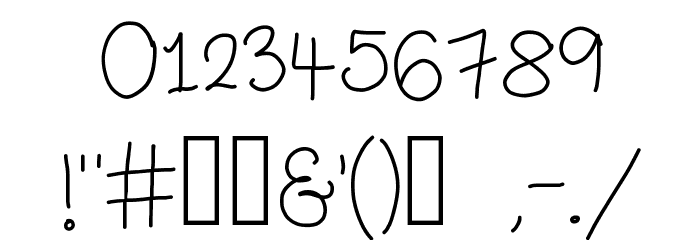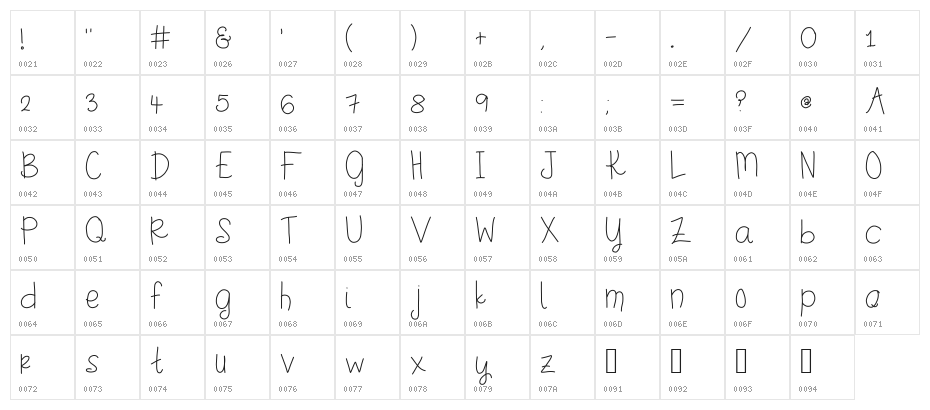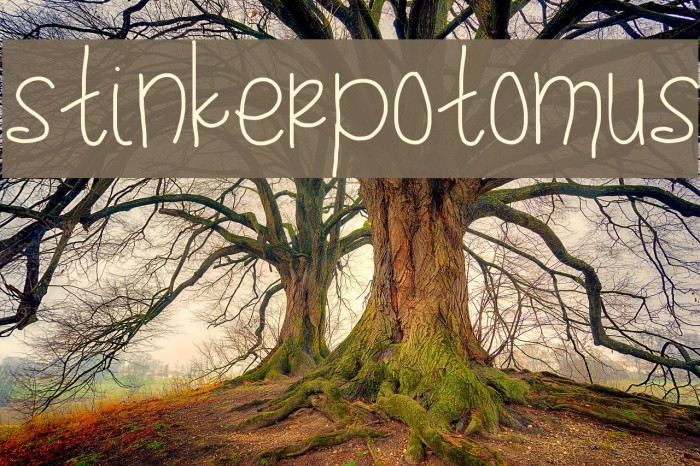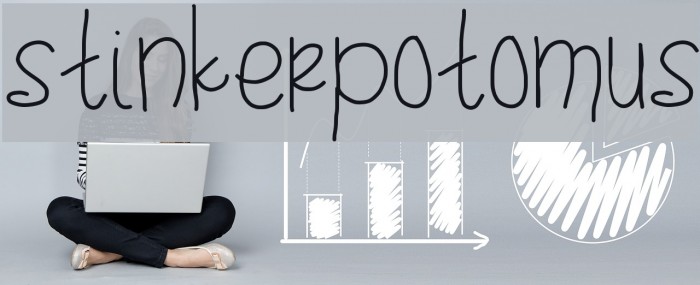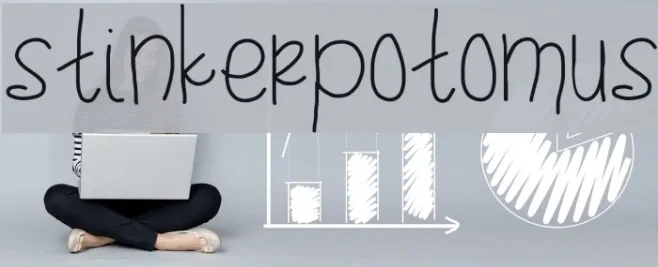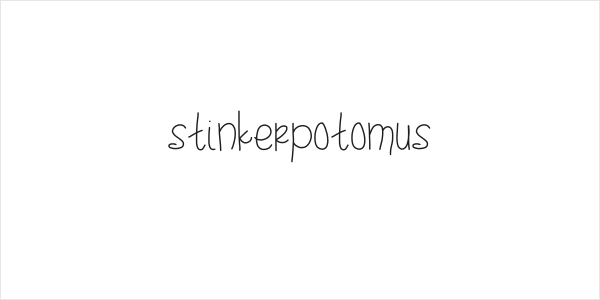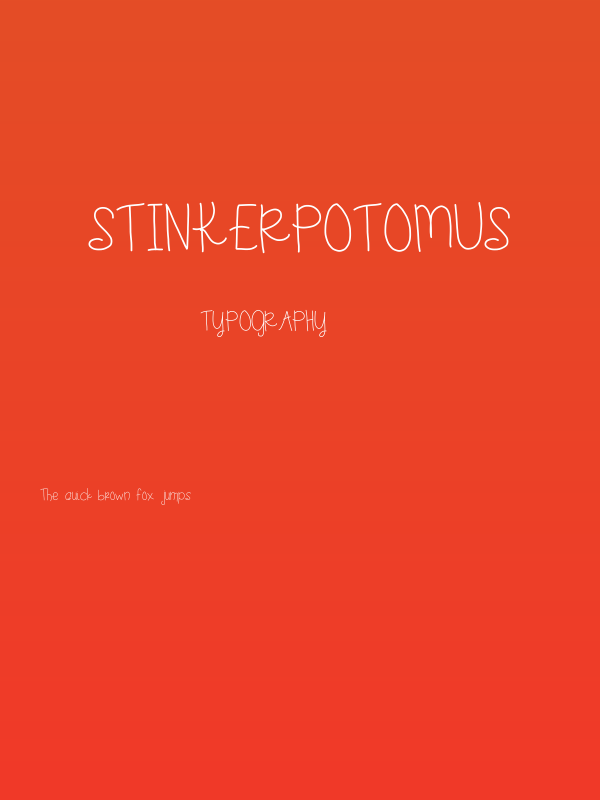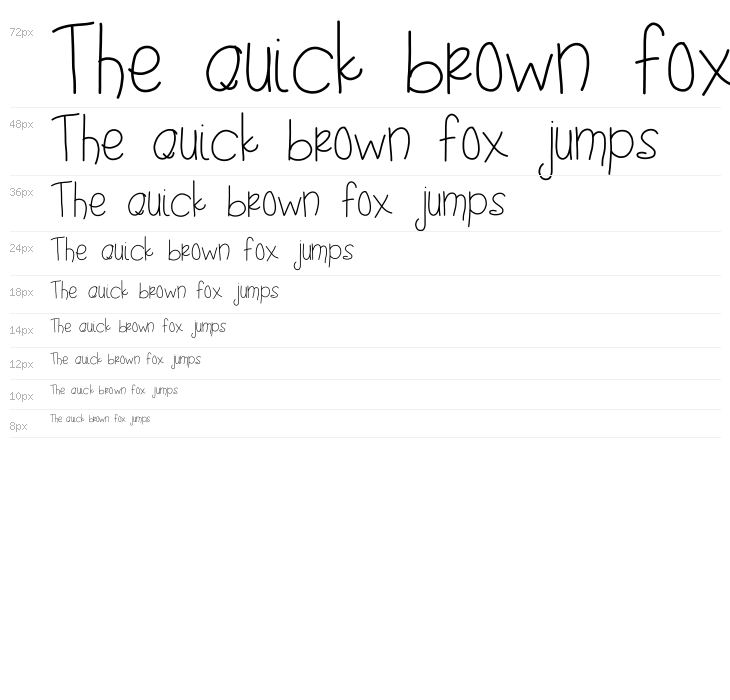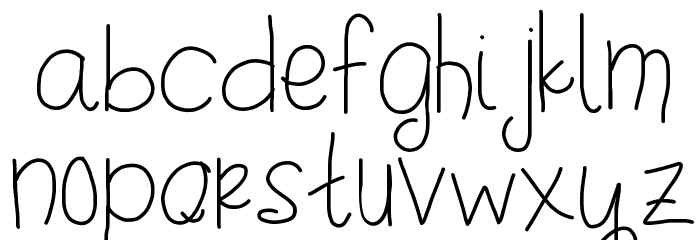
stinkerpotomus Font
stinkerpotomus Description
This playful and whimsical font features a handwritten style with a casual and friendly appearance. The letters are tall and slightly irregular, giving it a unique charm. The strokes are thin and consistent, with a slight curl at the ends of some characters, adding to its playful nature. The font maintains a consistent baseline, while the ascenders and descenders vary in length, enhancing its informal and relaxed feel. The numerals and special characters are designed to match the overall style, making it suitable for creative and informal projects.
| Overall Style | Whimsical |
| Proposed Projects | Ideal for children's books, greeting cards, playful branding, and informal invitations. |